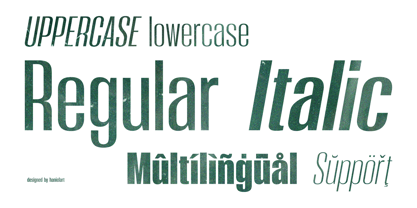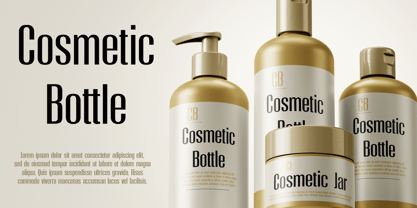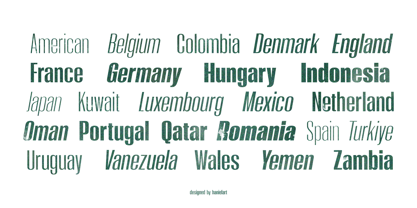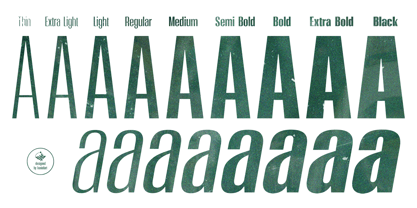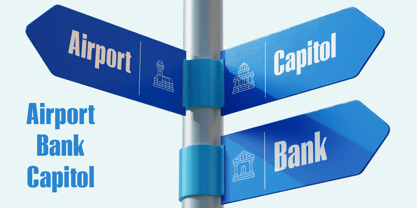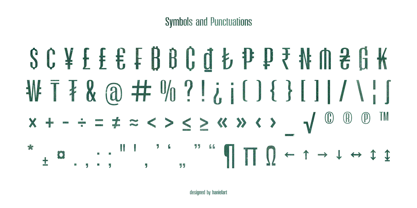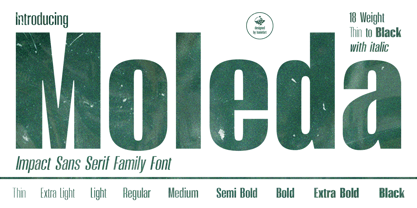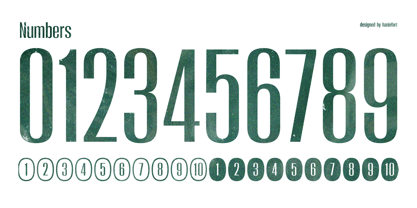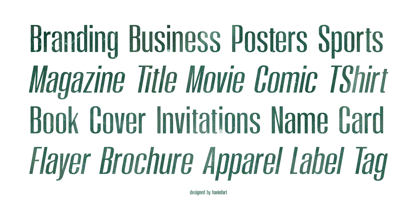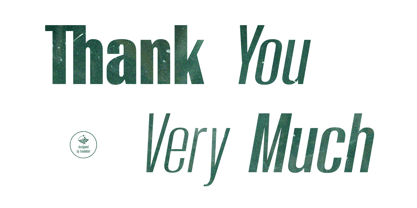
Moleda
The Moleda Font Family was designed by Hanif Maulazi and published by Haniefart. Moleda contains 18 styles and family package options.
Moleda is a sophisticated, versatile sans serif font family. Crafted with a distinctive, high-impact style, this typeface is elegant, beautiful, and friendly. Moleda includes uppercase and lowercase letters, numerals, punctuation, standard ligatures, and multilingual support. This versatile family comes in nine weights, ranging from thin to black, and is available in regular and italic versions. Its distinctive clarity and unique look make Moleda a perfect choice for a variety of designs, including book covers, magazines, brand packaging, brand visuals, posters, banners, business cards, labels, apparel designs, and more.